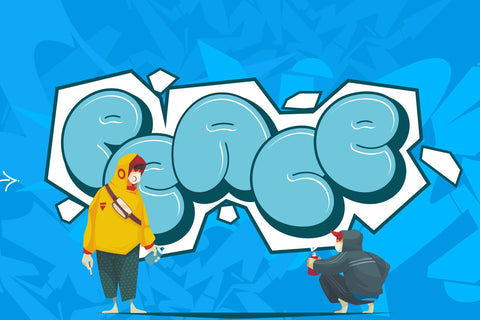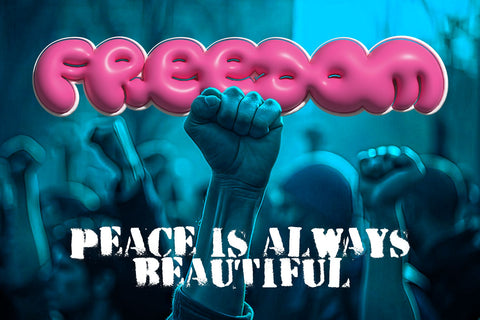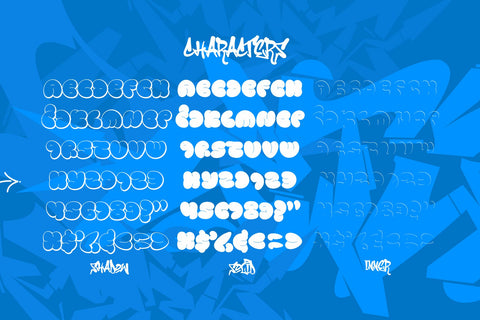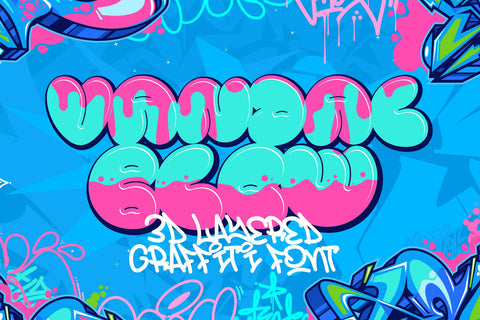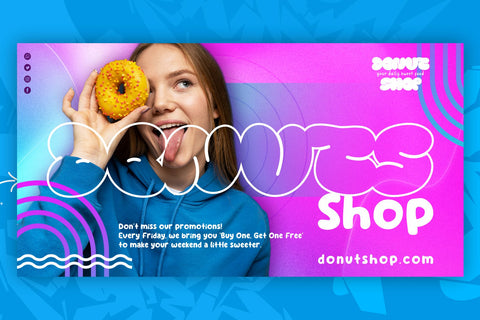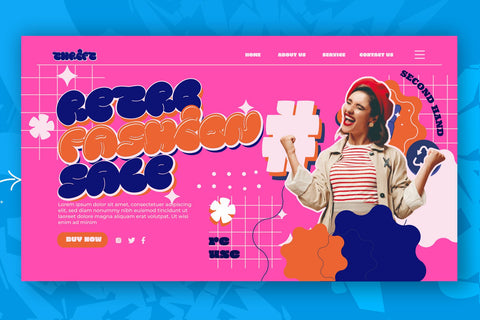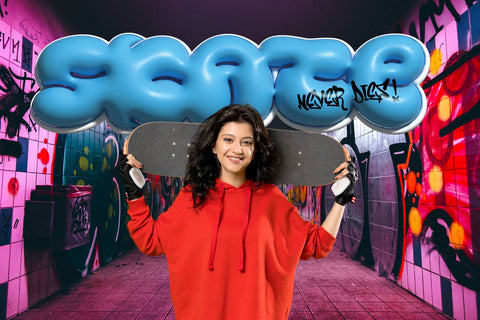
Vandal blow - 3d Layered Bubble Graffiti Font
"Vandal Blow" is a 3D layered graffiti font that includes solid, shadow, and inner shadow styles, providing the tools to create a three-dimensional appearance in your text. Fonts with layered styles like this are commonly employed in graffiti art, street art, posters, and other designs where a dynamic and eye-catching 3D effect is desired.
- Graffiti Characters looks